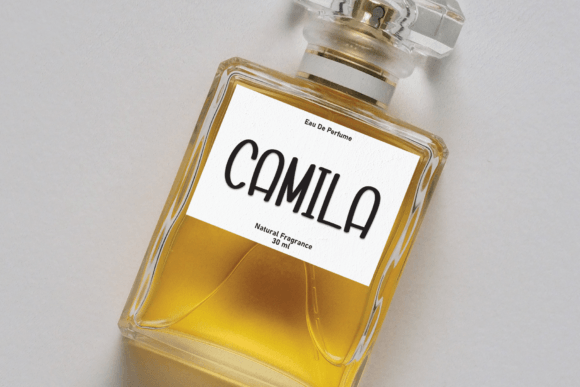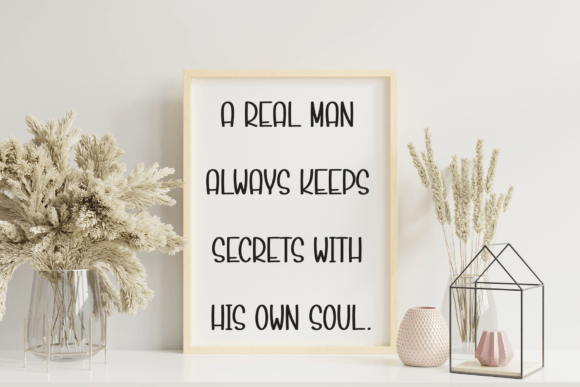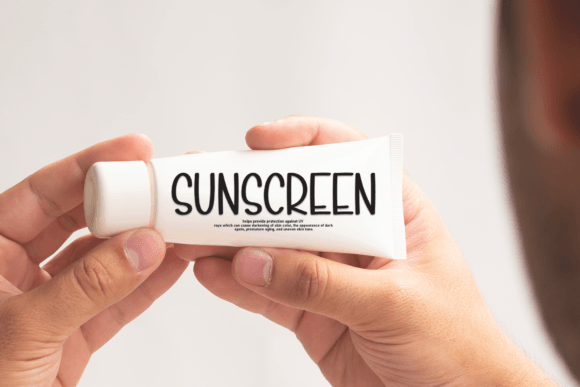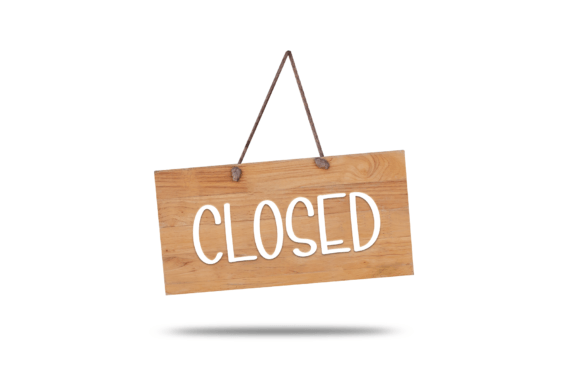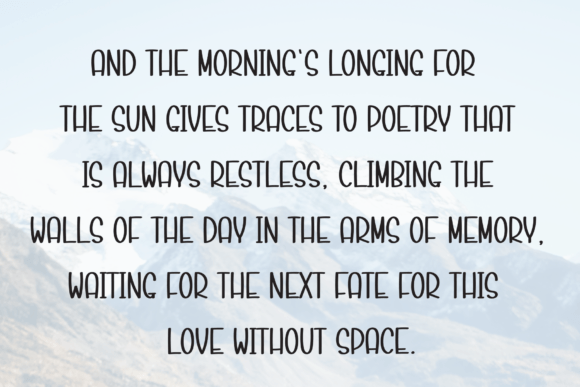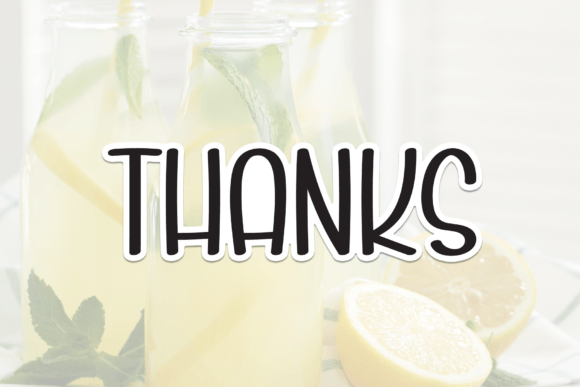
Introducing Beverage Lemonade Font: Elevate Your Designs with a Refreshing Twist
Are you tired of using the same old fonts in your designs? Look no further! Our Beverage Lemonade Font is here to quench your thirst for creativity. This special, creative product is designed to provide you with an extraordinary experience, perfect for a wide range of projects. From wall displays to wedding invitations, social media post logos, advertisements, product packaging, and more, our font is sure to add a touch of freshness to your work.
What Makes Beverage Lemonade Font So Special?
Our font is crafted with the latest style letters that are not only visually appealing but also versatile. Whether you’re a designer, crafter, or DIY enthusiast, you’ll love the flexibility and elegance that Beverage Lemonade Font brings to the table. Here are some of the key features that make our font stand out:
Endless Possibilities with Beverage Lemonade Font
The possibilities are endless when it comes to using our Beverage Lemonade Font. Here are some ideas to get you started:
- Wall displays: Create eye-catching wall displays for events, exhibitions, or even your home or office.
- Wedding invitations: Add a touch of elegance and whimsy to your wedding invitations and stationery.
- Social media post logos: Elevate your social media presence with custom logos and graphics featuring our font.
- Advertisements: Make your ads stand out with a refreshing and unique font that grabs attention.
- Product packaging: Give your products a premium look with custom packaging designs featuring our font.
- Product designs: Use our font to create stunning product designs, from labels to watermarks.
- Photography: Add a touch of personality to your photography with custom watermarks and overlays.
- Invitations and stationery: Create beautiful invitations, greeting cards, and stationery with our font.
Why Choose Beverage Lemonade Font?
With so many fonts available, why choose Beverage Lemonade Font? Here are a few reasons why our font stands out:
- Unique and creative: Our font is designed to be unique and creative, giving you a fresh perspective on your designs.
- High-quality: Our font is crafted with high-quality characters, ensuring that it looks great in any design.
- Versatile: Our font is versatile and can be used across various projects and design software.